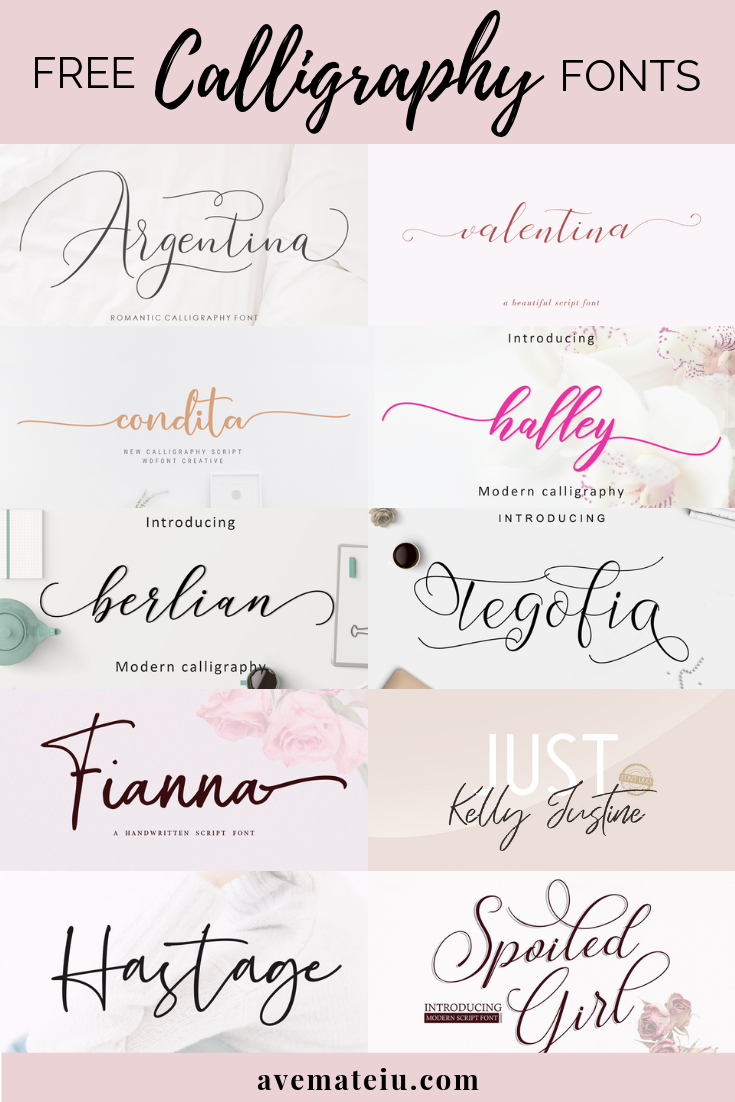
Hello lovelies and welcome back to my blog! I hope you’re having an awesome day! Calligraphy fonts again? Yes! Today’s post is yet another beautiful collection of calligraphy and handwritten fonts since we all love them so much!
Here are 20 New FREE Beautiful Calligraphy and Handwritten Fonts:
1. Berlian Script Font By Takiy
2. Halley Script Font By Takiy
3. Tegofia Script Font By Bandit handmade
Tegofia Script modern script with a handmade calligraphy style, decorative characters and a dancing baseline! So beautiful on invitation like greeting cards, branding materials, business cards, quotes, posters, and more!
4. Santeria Signature Script Font By Thomas Aradea
Signature is a beautiful calligraphy. It’s perfect for adding a luxurious touch to your logos, packagings, wedding stationary, websites, and every other designs which need a handwritten feel.
5. Fianna Script Font By Typefar
6. July it Semi Signature Script Font By Analogous
July it Semi Signature Font is a signature font that you can use to make a design. This is perfect for BRANDING, funny logos with this font and poster headline, magazines, book titles, business cards, beautiful fashion designs, advertisements, product designs, wedding invitation, signature or handwritten quote.
7. Just Kelly Justine Font Duo By khurasan
The Just Kelly Justine font is a modern font with two different styles, signature & sans + swash. Just Kelly Justine font it’s perfect for , poster, logo, magazine, cover, banner, t-shirts and headers, or even large-scale artwork.
8. Aladina Script Font By aminmario
Aladina is a new script with a monoline stylish handwritten. Monoline script style make this font looks natural, classy and perfect for any awesome project that need hand writing taste.
This is suitable for logos, watermarks on photography, signatures, branding, advertisement, quotes, invitations, stationery, wedding design,album covers, business cards, clothing, magazines, posters, and more!
9. Spoiled Girl Script Font By wdfont
This font is a connecting script with a dancing baseline, designed to convey elegance and style. Spoiled Girl is clean, feminine and friendly. All designs will have a wonderful homemade touch with Spoiled Girl, a gorgeous script font.
10. Romantisch Script Font By Uloel Design
Romantisch a lovely & modern script with a handmade calligraphy style, decorative characters So beautiful on invitation like greeting cards, branding materials, business cards, quotes, posters, and more!
11. Condita Script Font By wdfont
Condita a new fresh & modern script with a handmade calligraphy style, decorative characters and a dancing baseline! So beautiful on invitation like greeting cards, branding materials, business cards, quotes, posters, and more!
20. Chelsea Olivia Script Font By Garisman Std
My favorite is Argentina, I simply adore it!